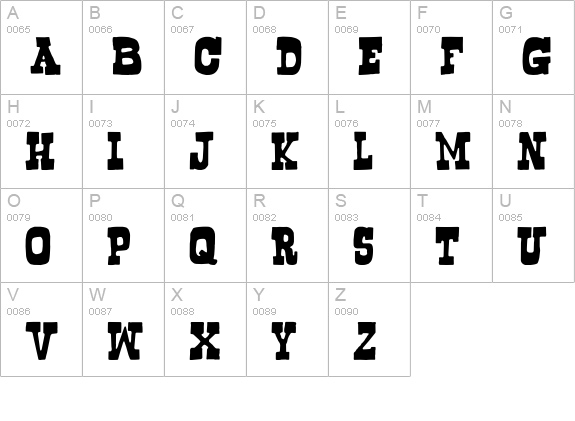
Bogusflow font is a stylish and modern typeface that exudes sophistication and elegance. With its sleek lines and contemporary design, this font is perfect for creating eye-catching designs for various projects. Whether you're working on branding, advertising, or any other creative endeavor, Bogusflow font will surely make your work stand out. What's even better is that Bogusflow font is available for free download at FontsMarket.com. This means you can easily access this beautiful font without having to spend a dime. Don't miss out on this fantastic opportunity to enhance your designs with the stunning Bogusflow font. Download it today and start creating with style and flair!